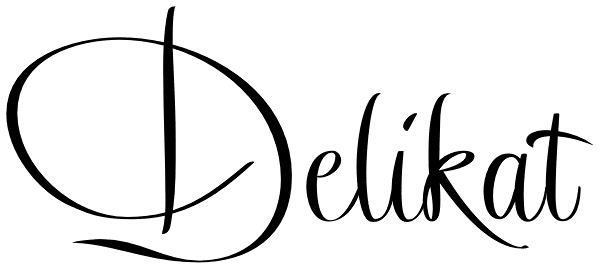
Delikat
Delikat is a graceful, finely crafted, slinky, slightly retro, somewhat quirky script font. Perfect for advertising material, clothing tags, restaurant and cafe menus, food labels, music videos, magazine pages, cosmetic branding and so many other...